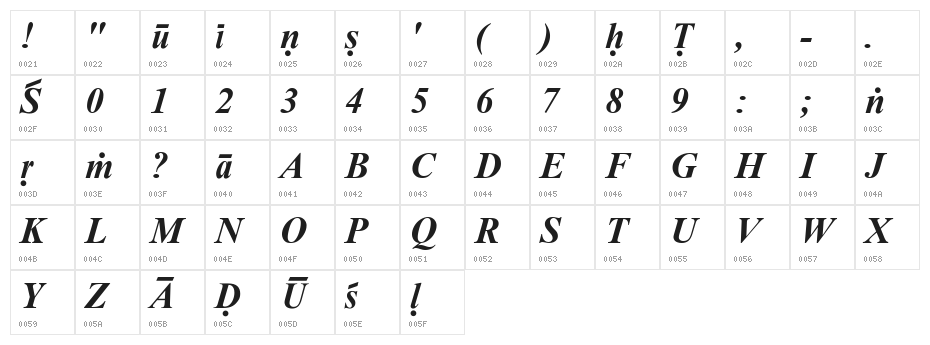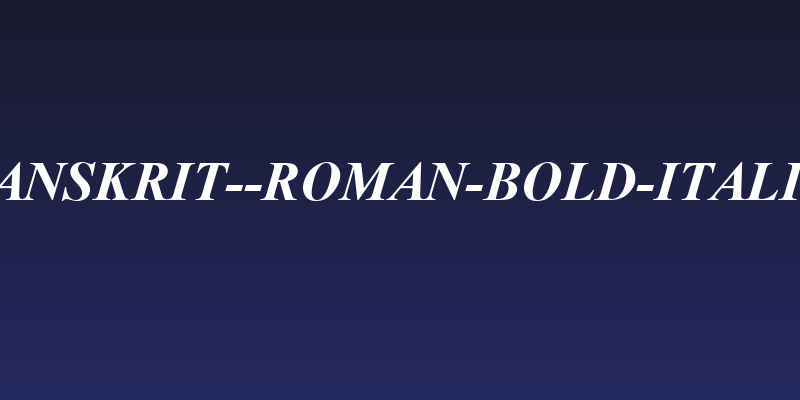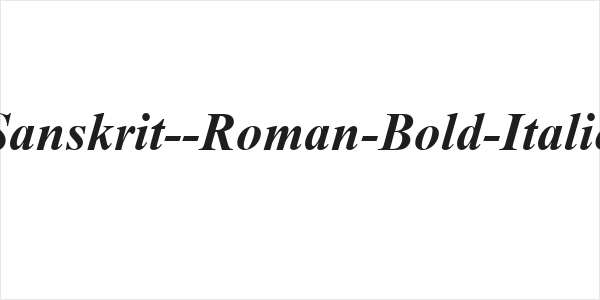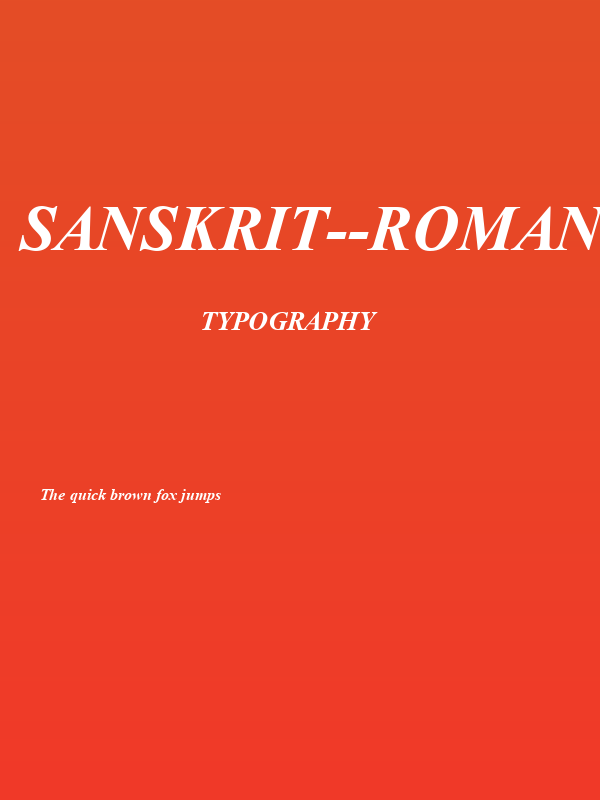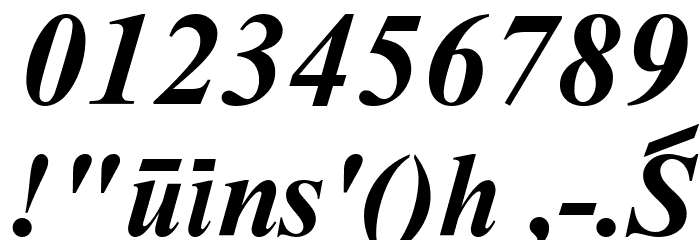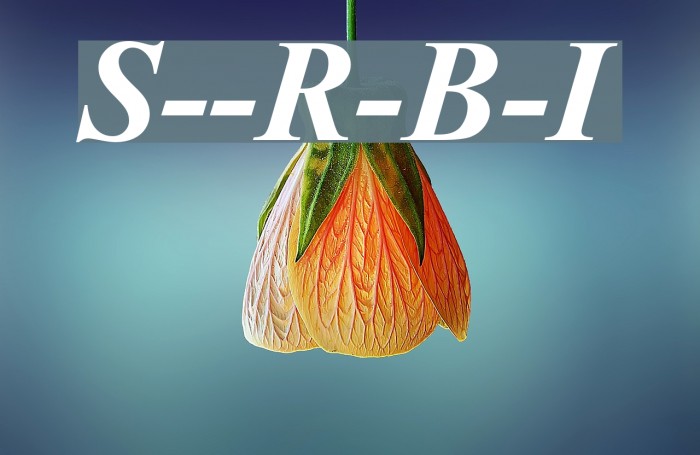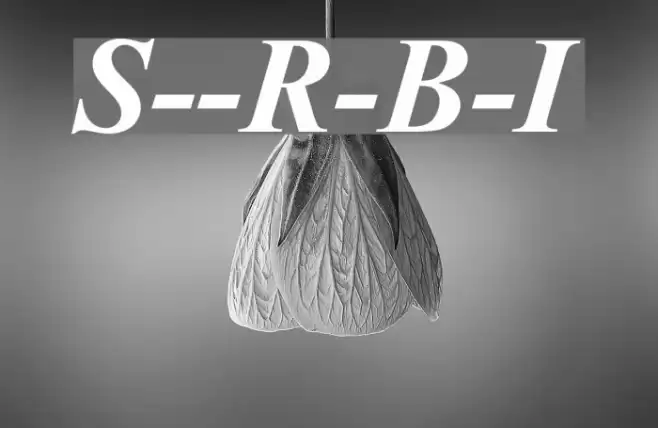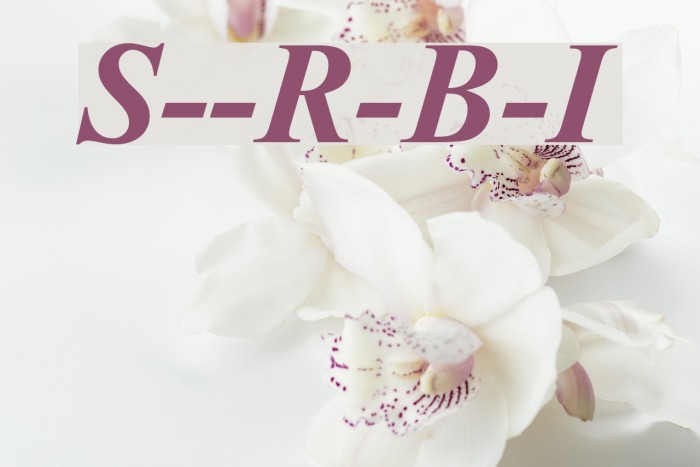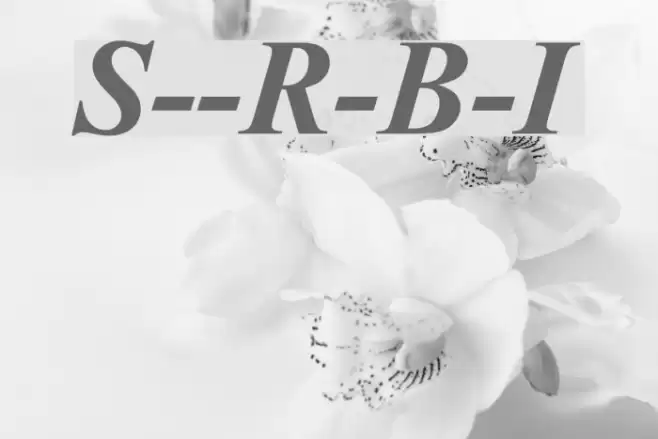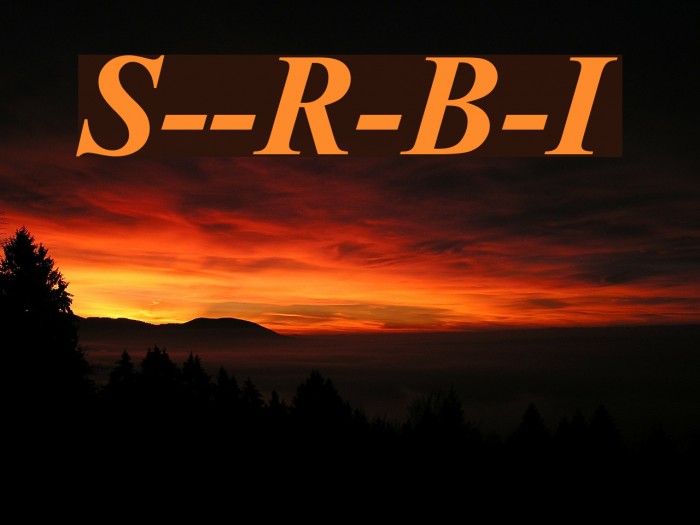
Sanskrit--Roman-Bold-Italic Font
Sanskrit--Roman-Bold-Italic Description
This font exhibits a bold and italic style, characterized by its strong and dynamic presence. The serif design adds a touch of elegance and tradition, while the italic slant introduces a sense of movement and fluidity. The uppercase letters are well-proportioned, with distinct serifs that enhance readability. Lowercase letters maintain a consistent style, with smooth curves and clear differentiation between characters. Numbers are bold and easily distinguishable, making them suitable for various applications. The special characters are crafted with attention to detail, ensuring they complement the overall aesthetic. This font is versatile, suitable for both formal and creative projects.
| Overall Style | Classic |
| Use Case | Headlines, Body text, Logos |
| Proposed Projects | Ideal for book covers, formal invitations, branding, and editorial design. |